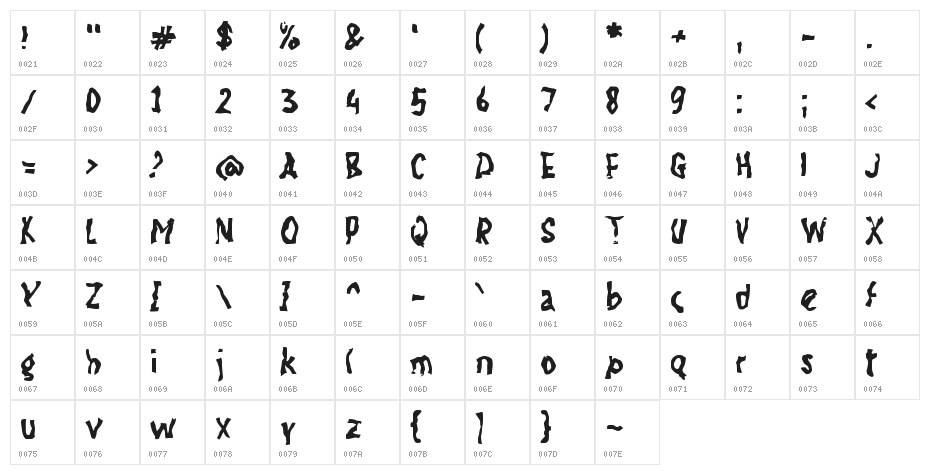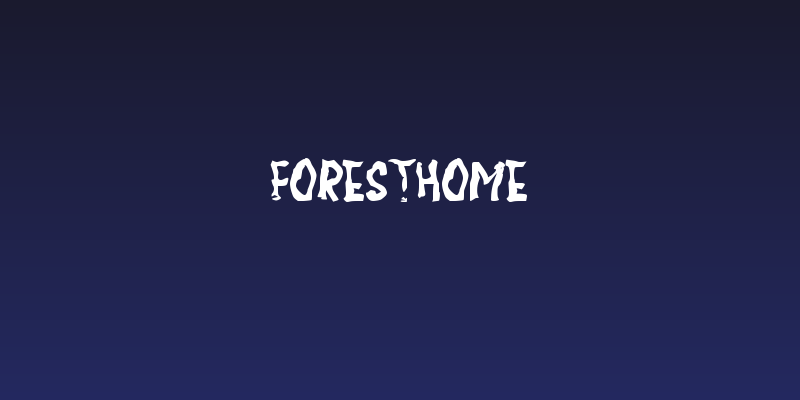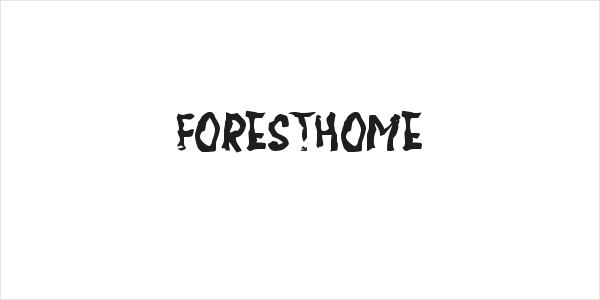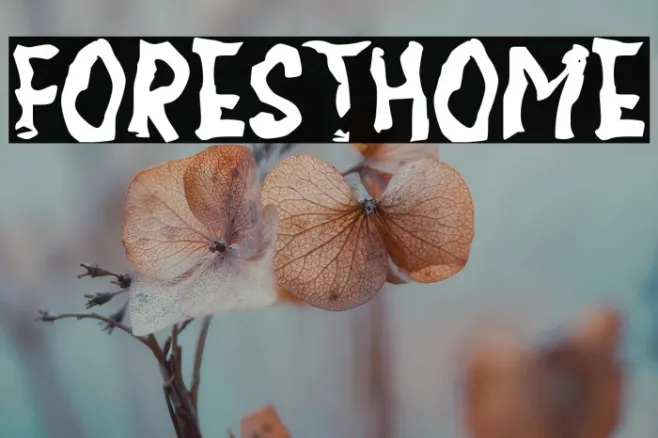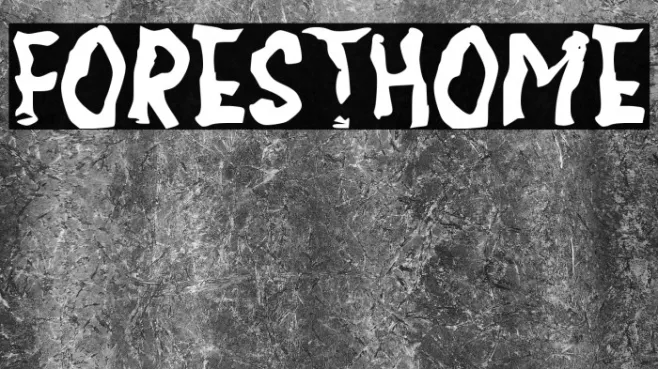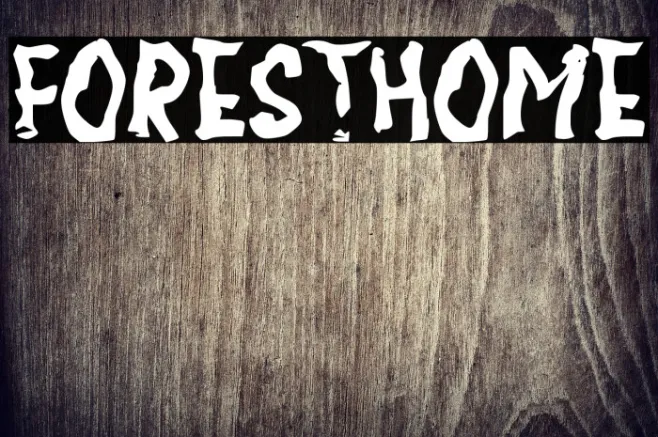
FORESTHOME Font
FORESTHOME Description
This font exhibits a rugged and organic style, reminiscent of hand-carved wood or natural textures. The characters are uneven and irregular, giving a sense of movement and vitality. The uppercase and lowercase letters maintain a consistent theme, with jagged edges and varying stroke widths that suggest a handcrafted quality. The numbers and special characters follow the same aesthetic, ensuring a cohesive look across all glyphs. This font's unique appearance makes it stand out, capturing attention with its bold and dynamic presence.
| Overall Style | Rustic, Organic, Handcrafted |
| Use Case | Logos, Posters, Packaging |
| Proposed Projects | Ideal for projects related to nature, outdoor adventures, eco-friendly brands, or rustic-themed designs. It could be used effectively in posters, logos, or packaging that aims to convey an earthy or artisanal feel. |